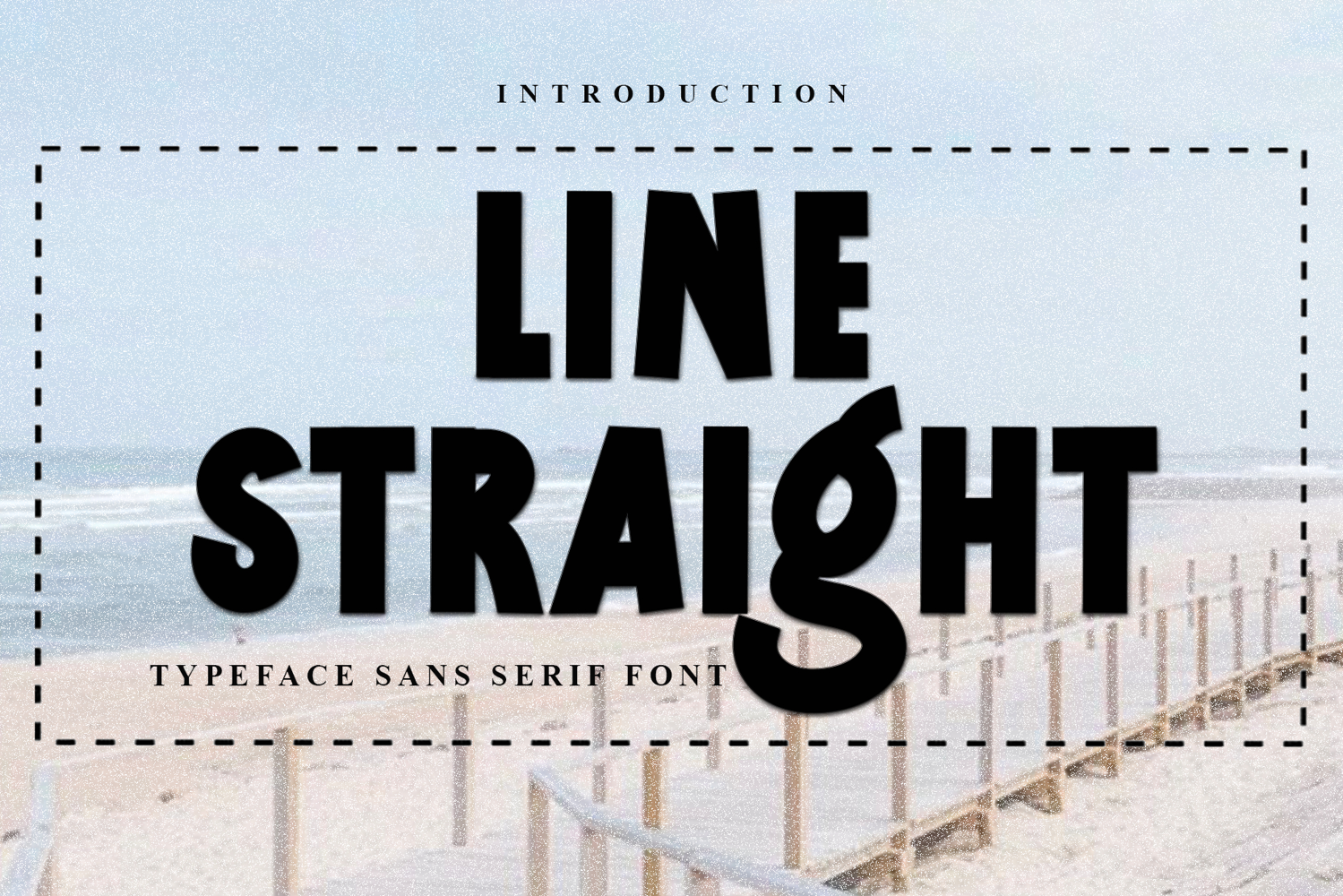
Line Straight
Line Straight is a beautiful and eye-catching font designed with a soft, unique touch. Its distinctive strokes give it a special character, making it meaningful and versatile for future use. With various characters, it’s perfect for design projects, crafts, and other creative works.